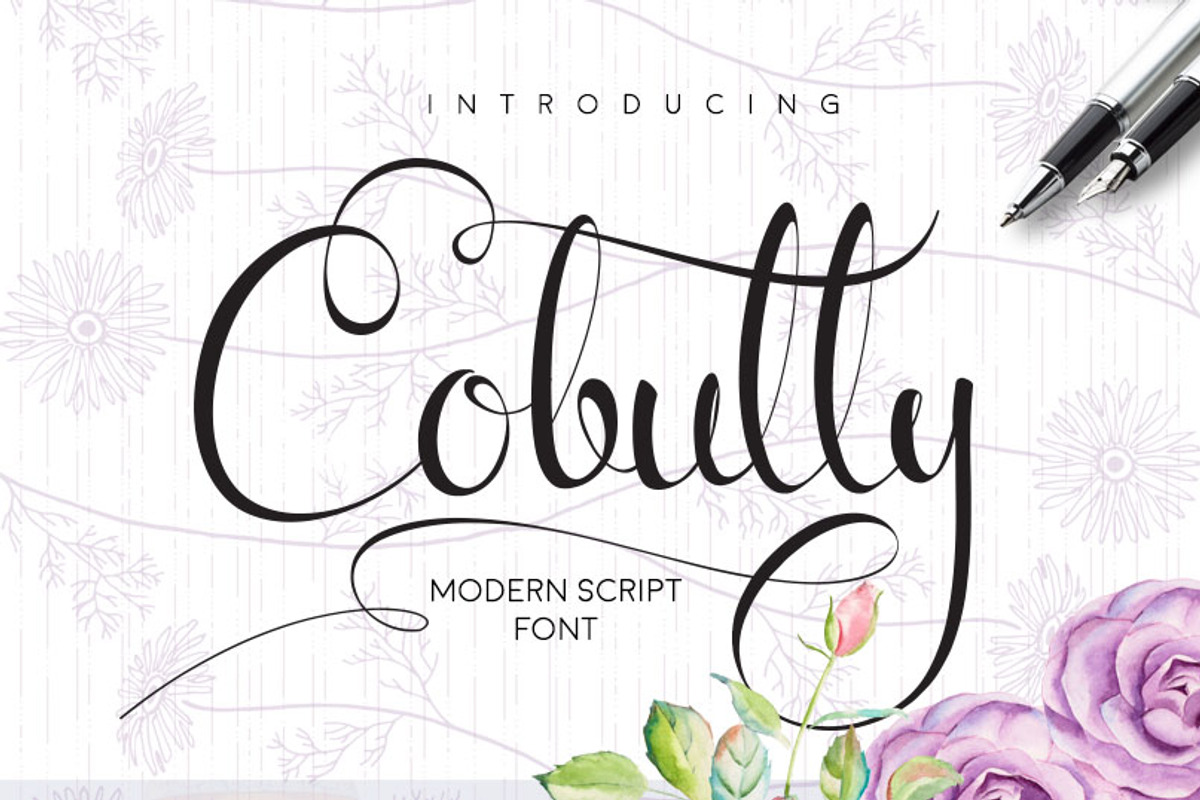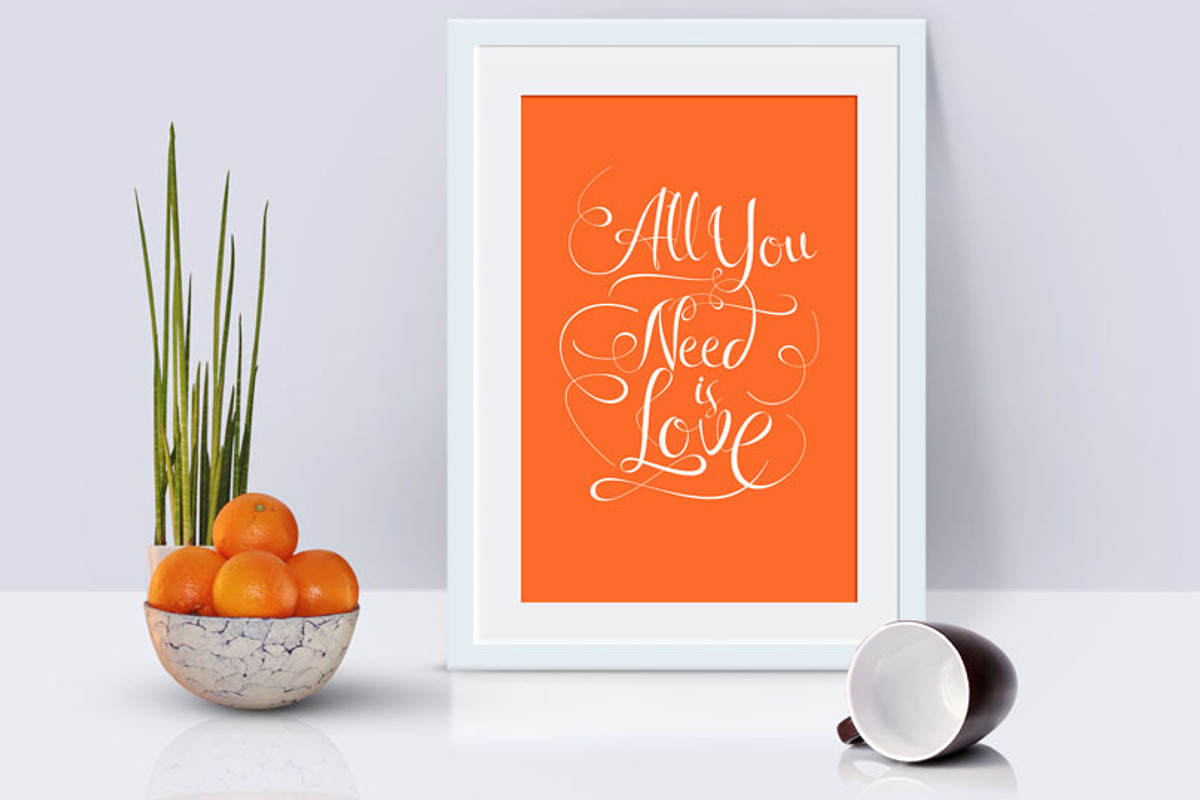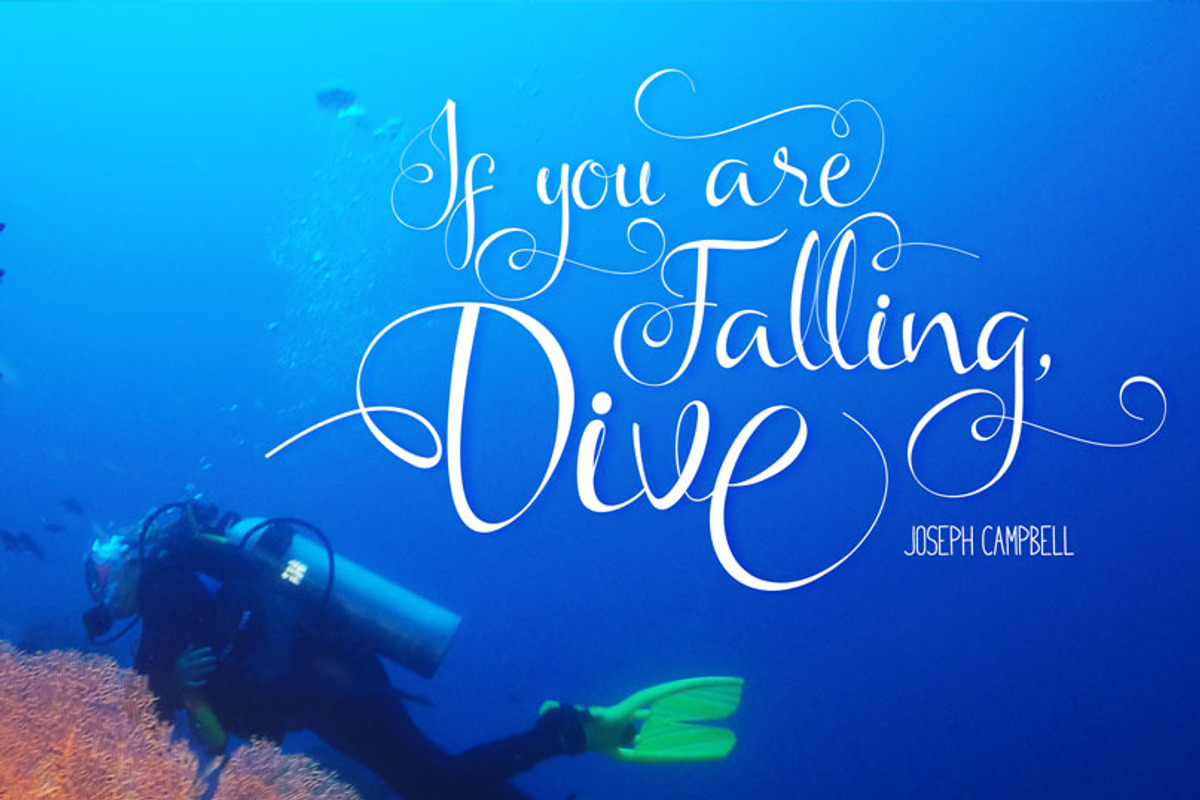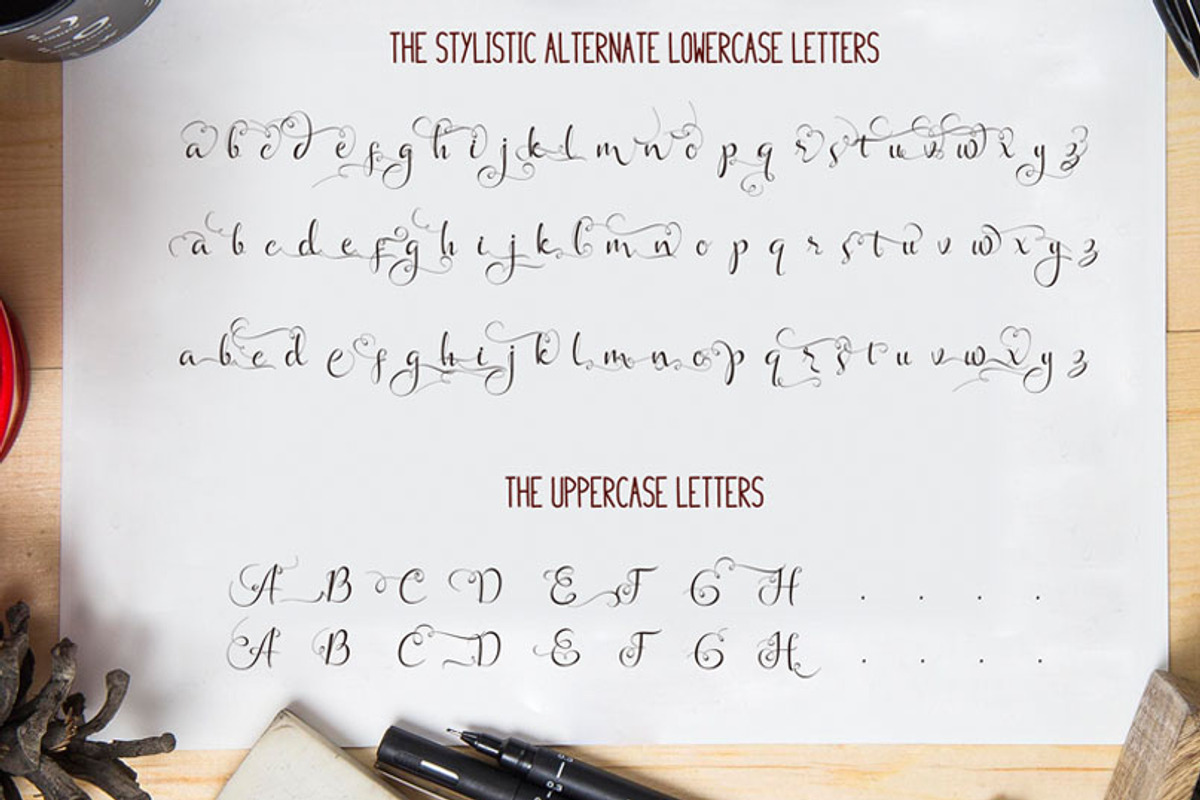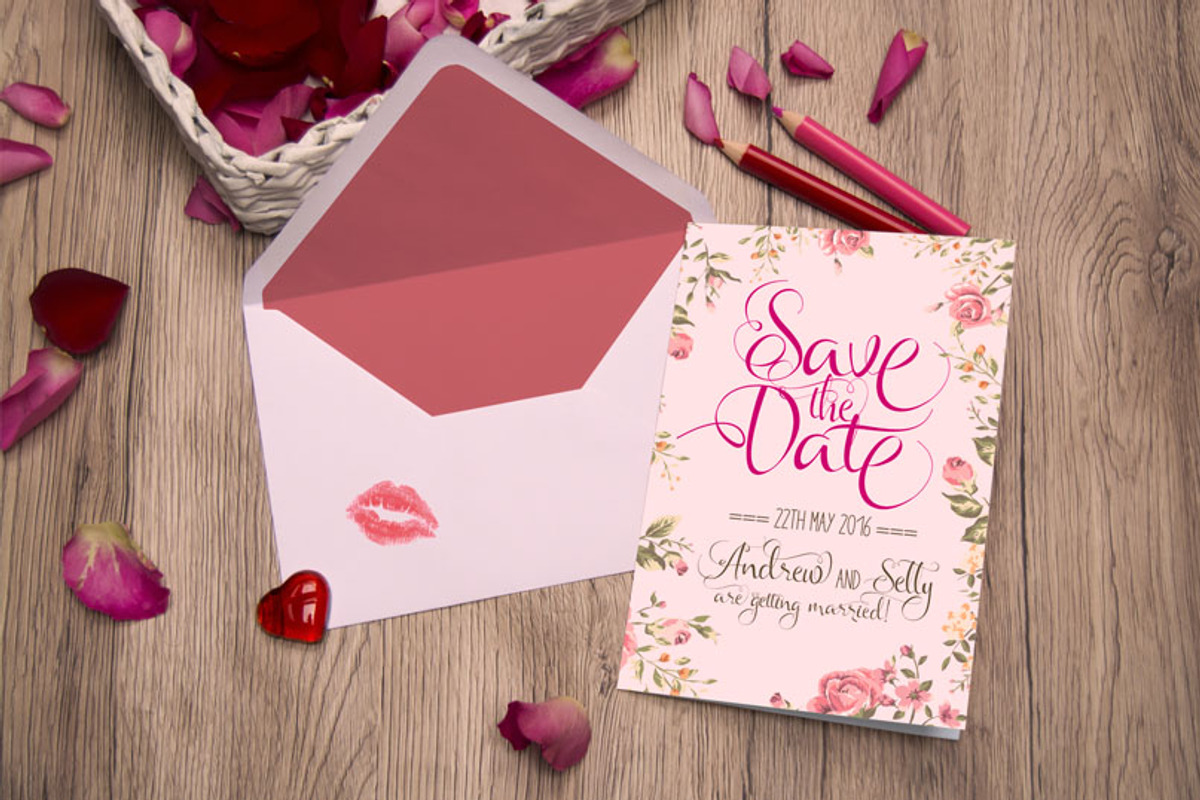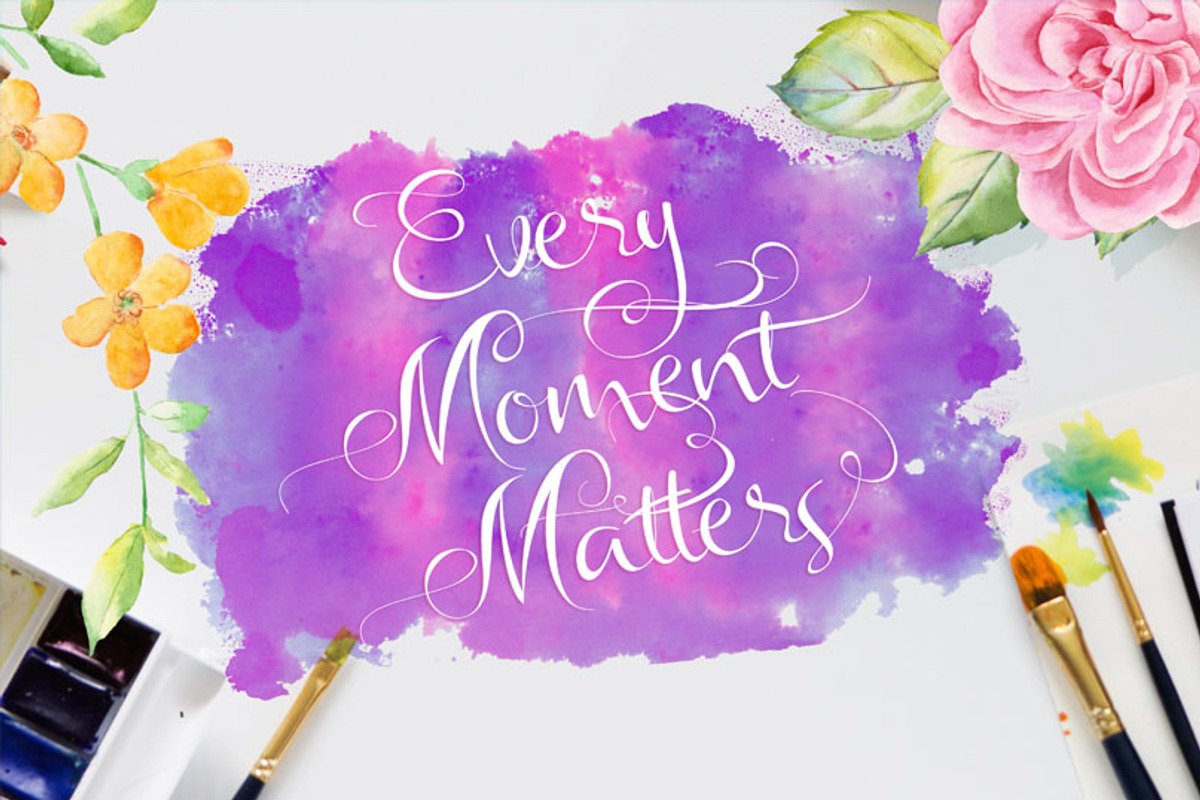
Cobully Script Font
Cobully Script Font by Mildstudio is a font selected for branding, posters, packaging, typography.
- Introducing Cobully Script - a new fresh & modern script with a sweet calligraphy-style, decorative characters and a dancing baseline!
- Cobully come with 315 Characters.
- The alternative characters were divided into several OpenType features such as Stylistic Sets and Contextual Alternates.
Why Cobully Script Font is worth a look
Cobully Script Font by Mildstudio fits naturally into Branding, posters, packaging, typography.